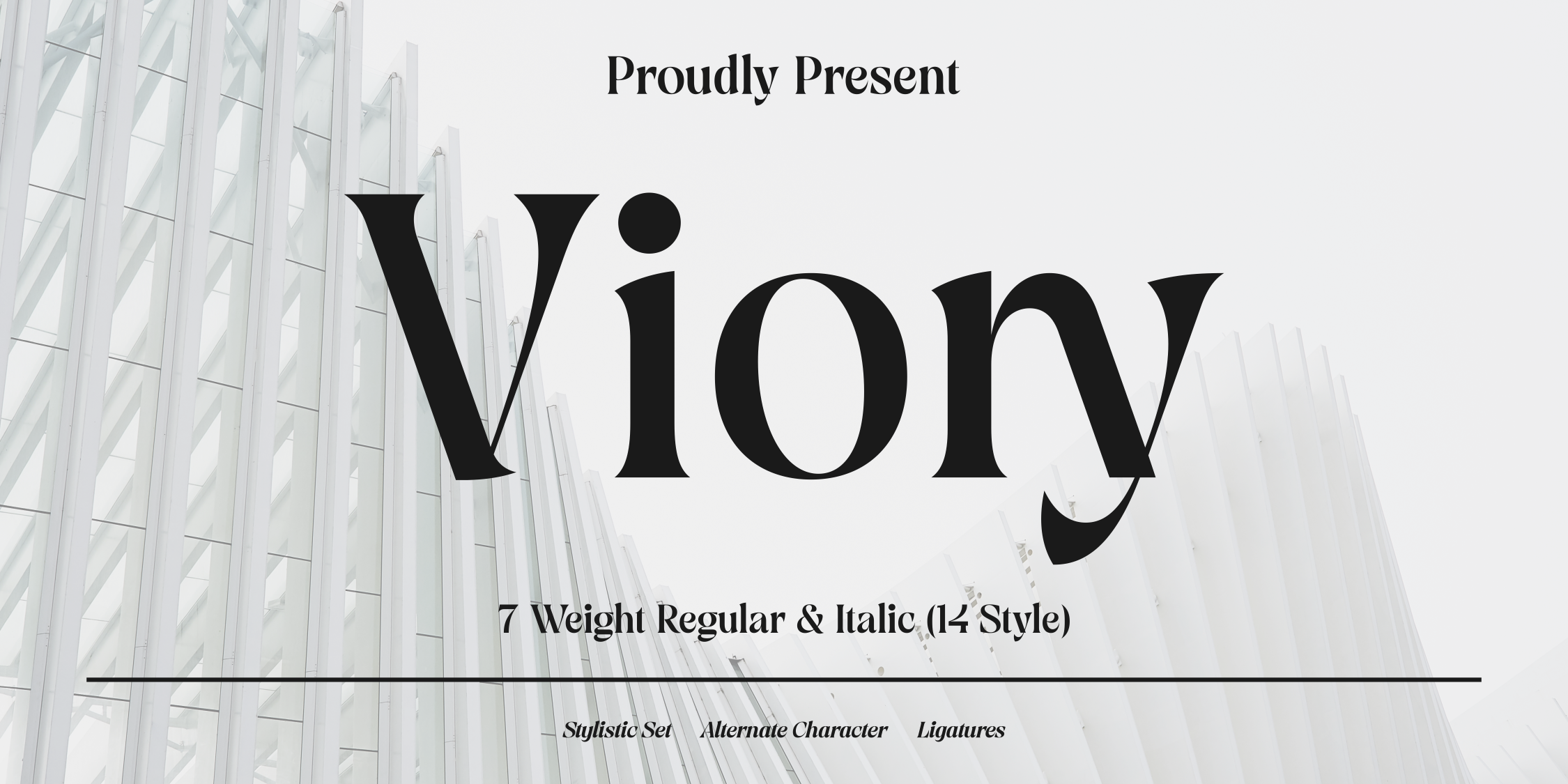
Viory
Viory is a serif font family. This typeface has fourteen styles and was published by Sign Studio.
Viory is a versatile font family. They will complement each other to support your design. Equipped with the OpenType Stylistic Set 01 feature to change a number of characters (a, e, g, y) with just one click, flexible Discretionary Ligature and 2 Alternative Characters (g).
Viory has a smooth shape because the pressure on each curve has been adjusted to the ideal. An elegant and classic impression will be clearly visible in this font family. Will be suitable for design projects with a feminine and stylish theme.